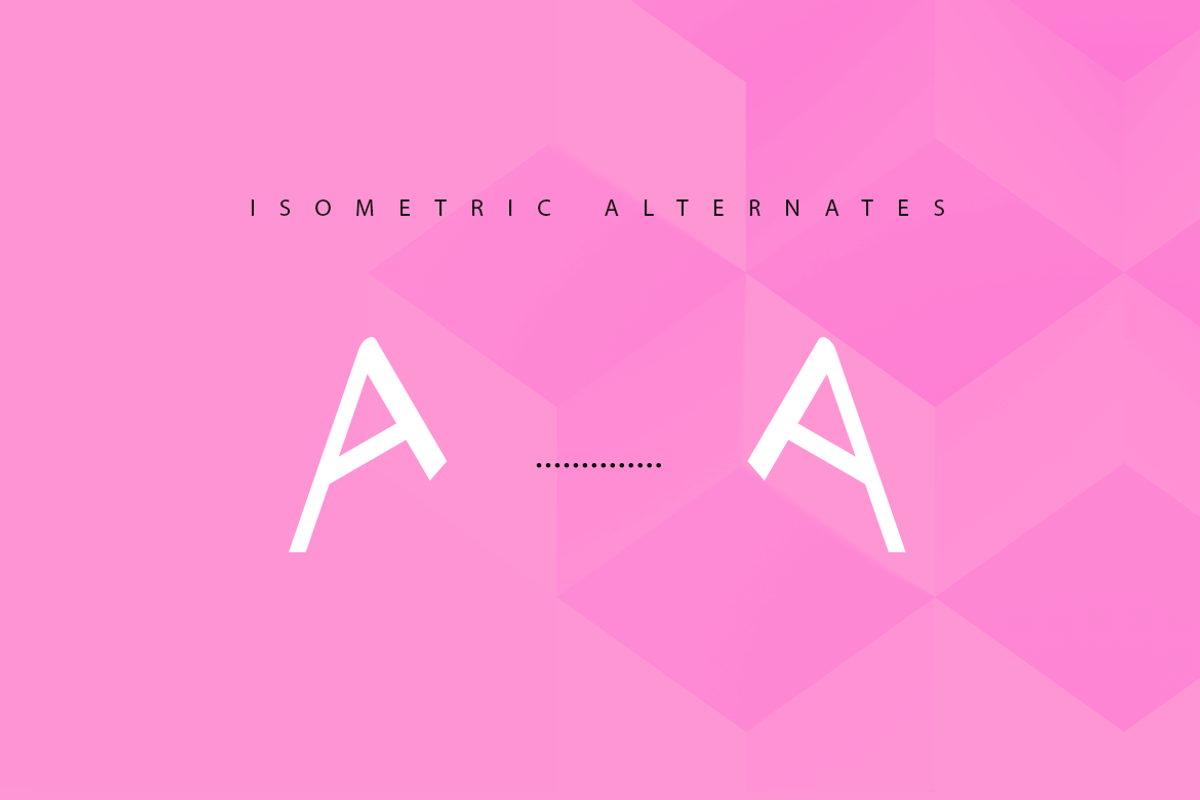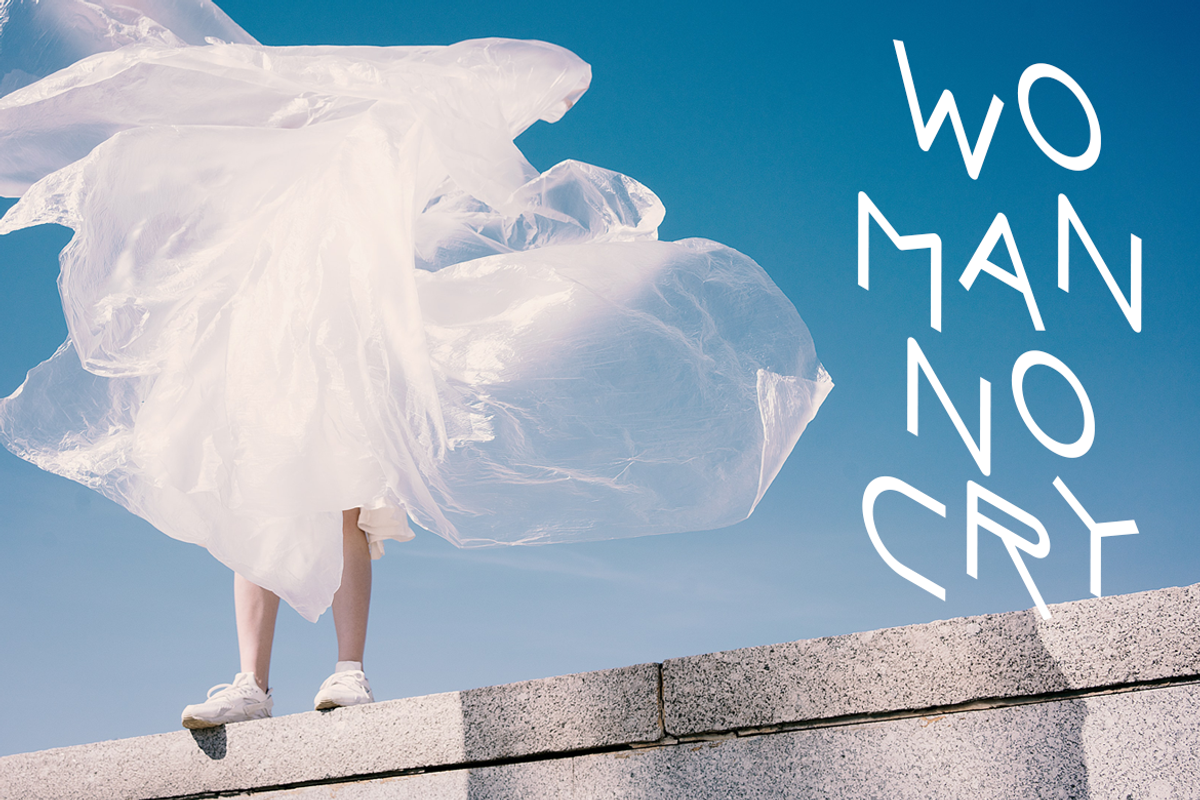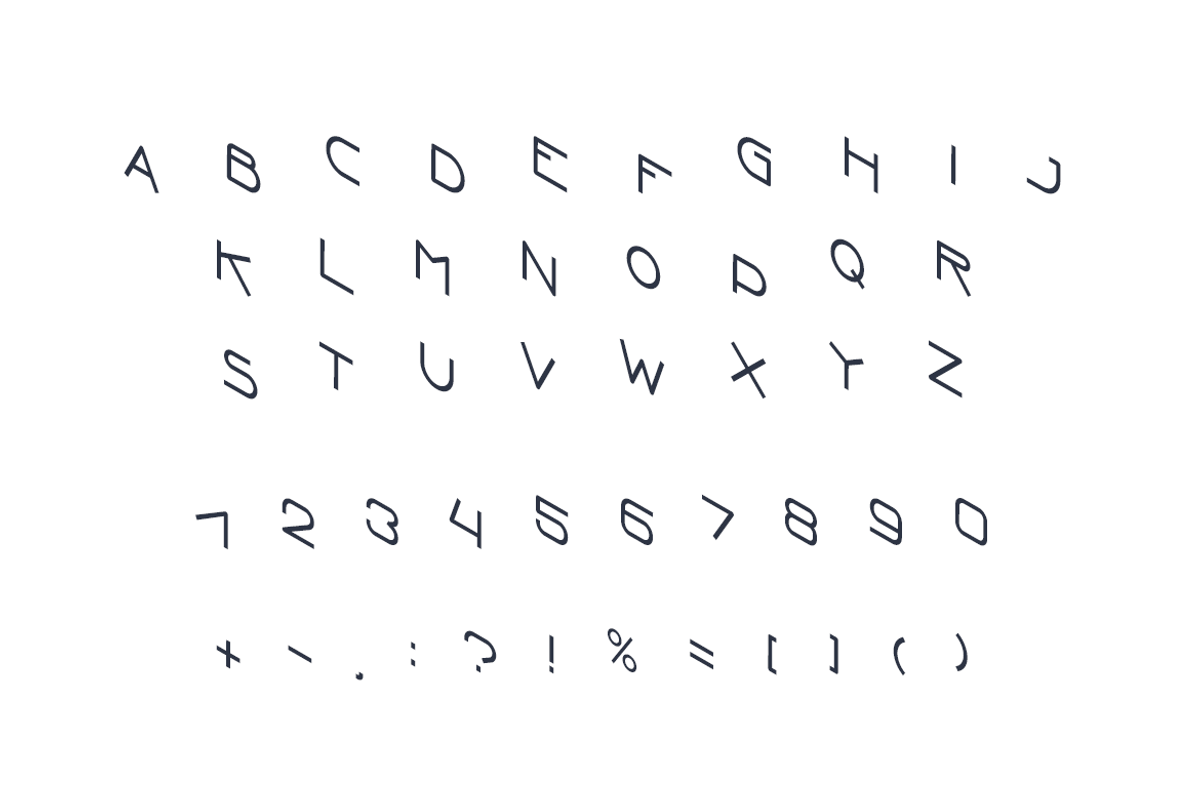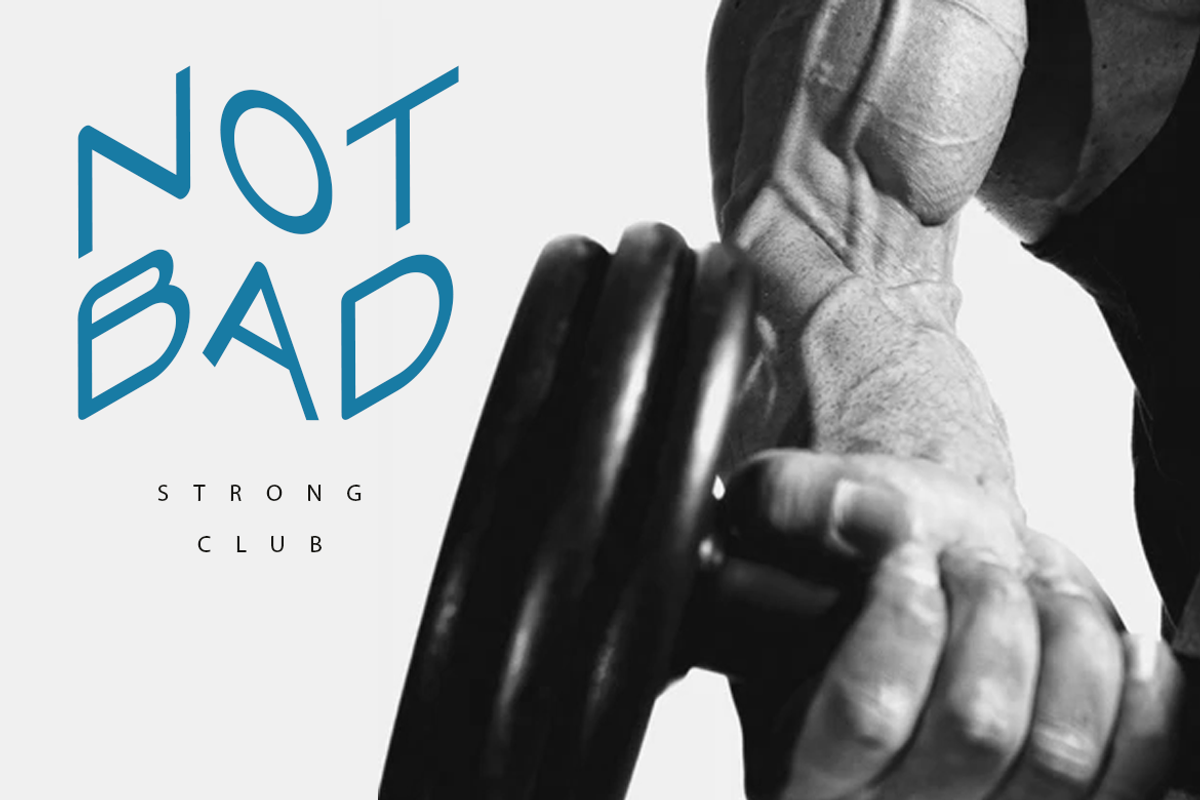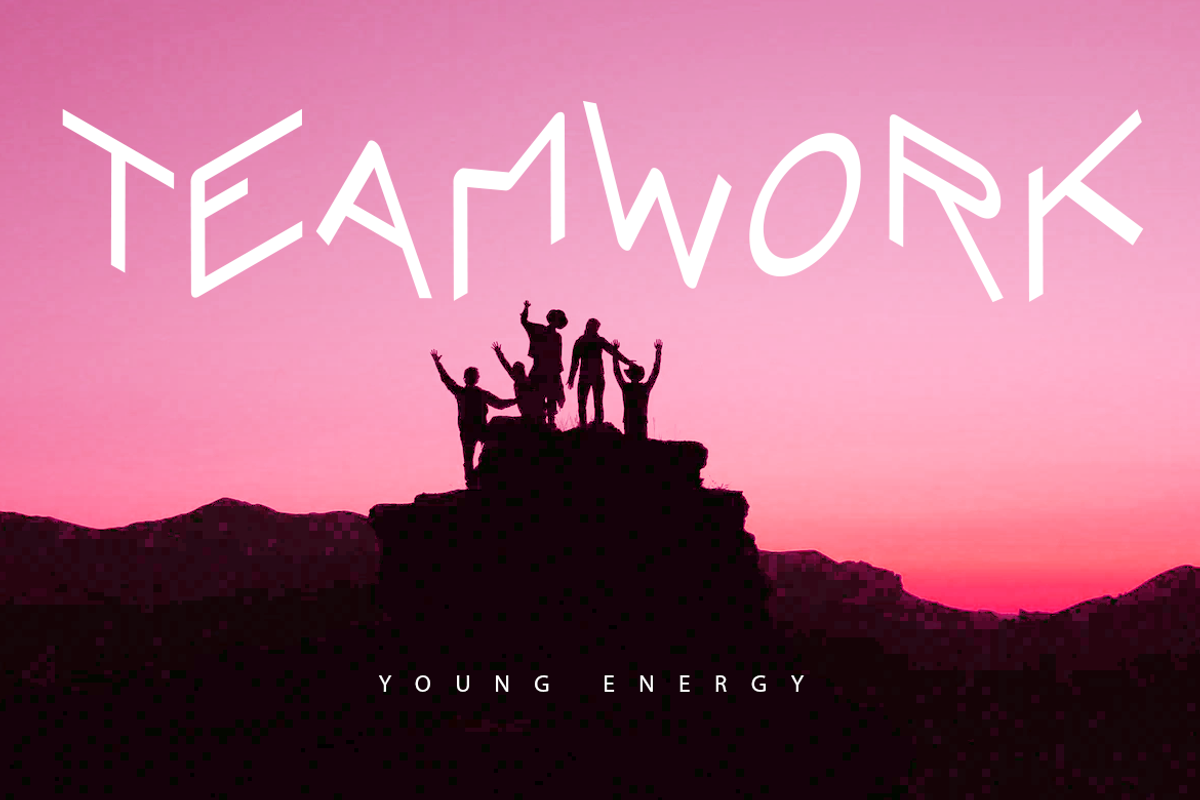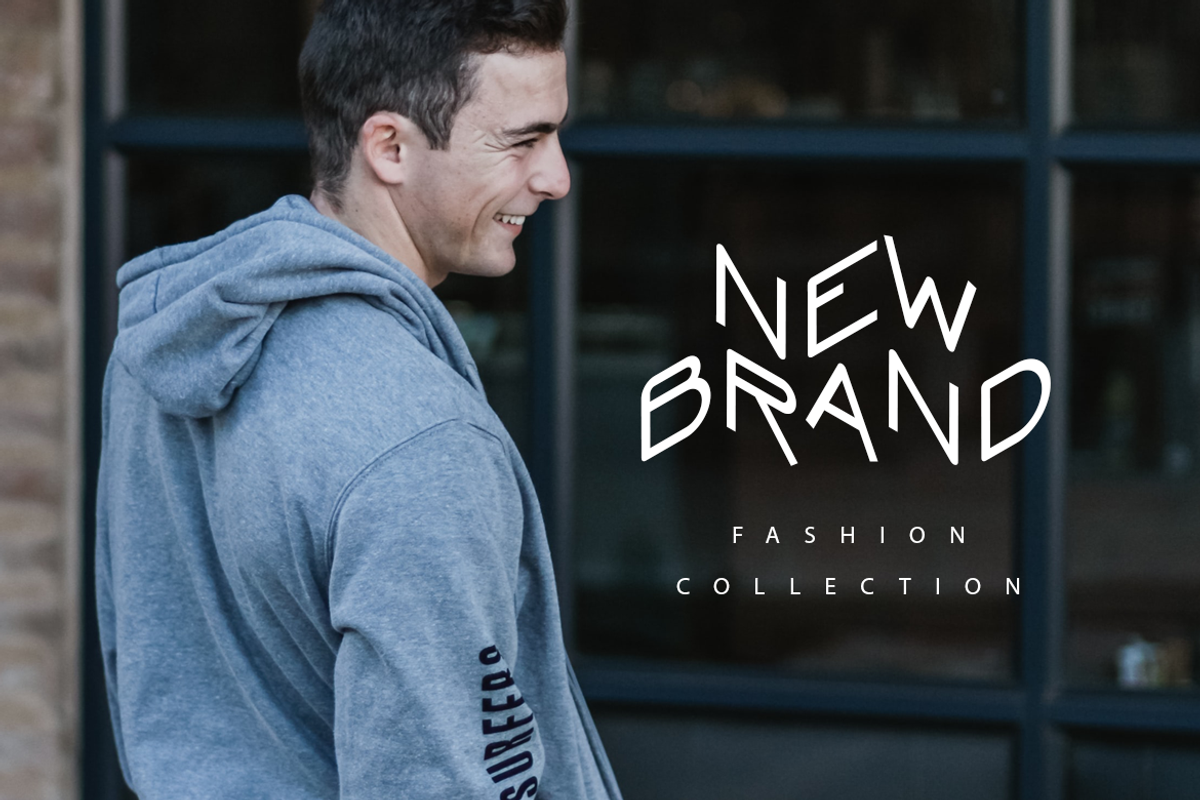
Zoomer| isometric font
Zoomer is an isometric sans serif font designed with rounded letters. The font has mirrored alternates. The font looks good both on a light and on a dark background. The font has only capital letters, it works great to make short titles.
uppercase letters with alternates
special characters set
- The font has mirrored alternates.
Zoomer| isometric font by wowomnom fits naturally into Branding, posters, packaging, typography.